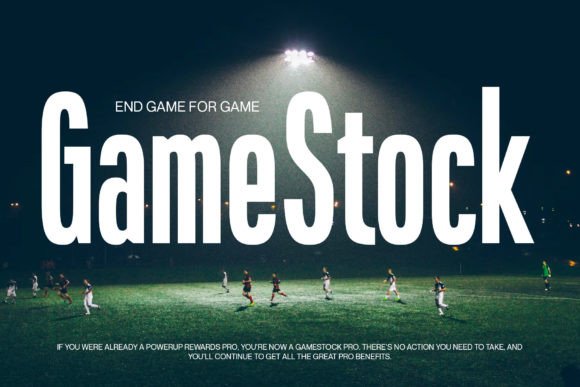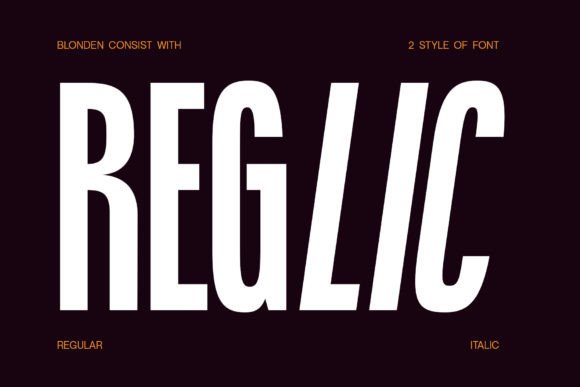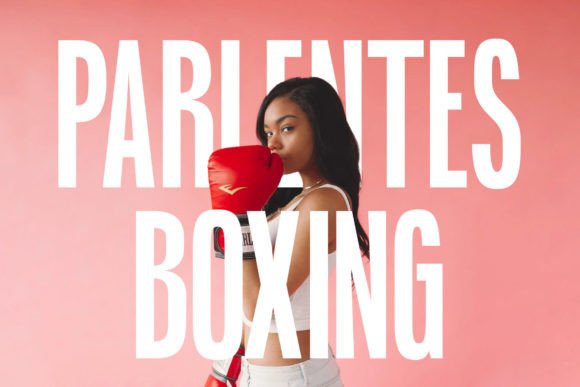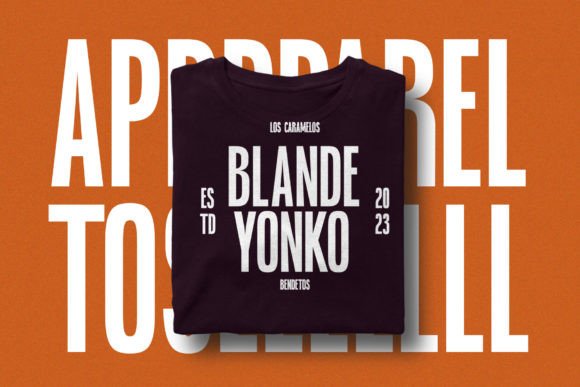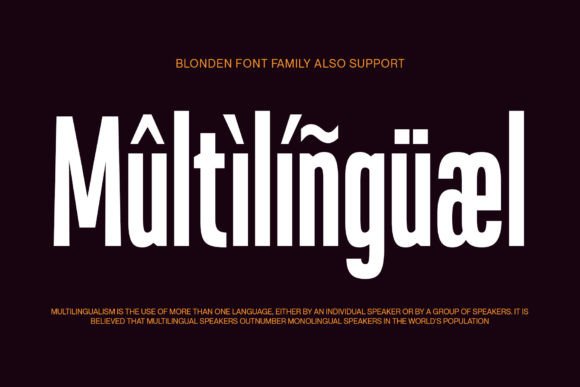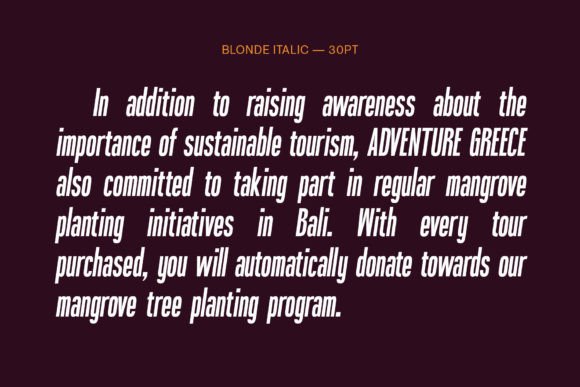
Introducing Blonden: The Modern Sans-Serif Font That’s Making Waves
I’ll never forget the time I was working on a project for a trendy boutique client, and I was struggling to find the perfect font to match their modern aesthetic. The design needed to be sleek, compact, and attention-grabbing, but everything I tried seemed to fall flat. That’s when I stumbled upon Blonden, a condensed sans-serif font that completely transformed my design. In this article, I’ll share my experience with Blonden, its features, and how to make the most of it in your designs.
A Personal Review of Blonden
What I Love About Blonden ✨
- ✅ Streamlined Efficiency: Blonden’s condensed form makes it perfect for tight spaces, without sacrificing style or legibility.
- ✅ Sleek Versatility: This font seamlessly adapts to various design contexts, from greeting cards to packaging and brand identity.
- ✅ Dynamic Edge: Blonden adds a modern touch to any design, making it perfect for projects that require a bold statement.
- ✅ Easy to Read: Despite its condensed form, Blonden remains clear and readable, even at smaller font sizes.
While Blonden is an excellent font, it’s not without its quirks. For instance:
- 🤔 Limited Serif Options: As a sans-serif font, Blonden might not be the best choice for designs that require a traditional serif look.
- 🤔 Not Ideal for Body Text: Due to its condensed form, Blonden is better suited for headlines, titles, and short paragraphs rather than lengthy body text.
- Experiment with OpenType features, such as stylistic alternates, to add visual interest to your text.
Exploring Alternatives to Blonden
If you’re looking for similar fonts or want to experiment with different styles, consider these alternatives:
- Montserrat: A geometric sans-serif font with a similar condensed form, ideal for modern designs and urban aesthetics.
- Inter: A contemporary sans-serif font designed for digital interfaces, offering a clean and legible look.
- Akzidenz-Grotesk: A classic sans-serif font with a similar industrial feel, suitable for bold statements and editorial designs.
- Helvetica Condensed: A condensed version of the iconic Helvetica font, offering a clean and professional look for designs that require a compact style.
The Story Behind Blonden
Blonden was designed with the goal of creating a modern, efficient, and stylish sans-serif font. Inspired by the clean lines and minimalism of contemporary design, Blonden’s creator aimed to craft a font that would excel in a variety of applications, from packaging to digital interfaces. The result is a versatile typeface that brings a dynamic edge to any design project.
| What is Blonden best suited for? | Blonden is ideal for designs that require a modern, condensed sans-serif font, such as greeting cards, packaging, brand identity, posters, and more. |
| Is Blonden suitable for body text? | While Blonden is legible, it’s better suited for headlines, titles, and short paragraphs due to its condensed form. |
| Does Blonden support OpenType features? | Yes, Blonden supports OpenType features, including stylistic alternates and glyphs, allowing for added versatility in your designs. |
With its sleek design, versatility, and modern aesthetic, Blonden is an excellent addition to any designer’s toolkit. Feel free to experiment with this typeface and discover its full potential in your creative projects!